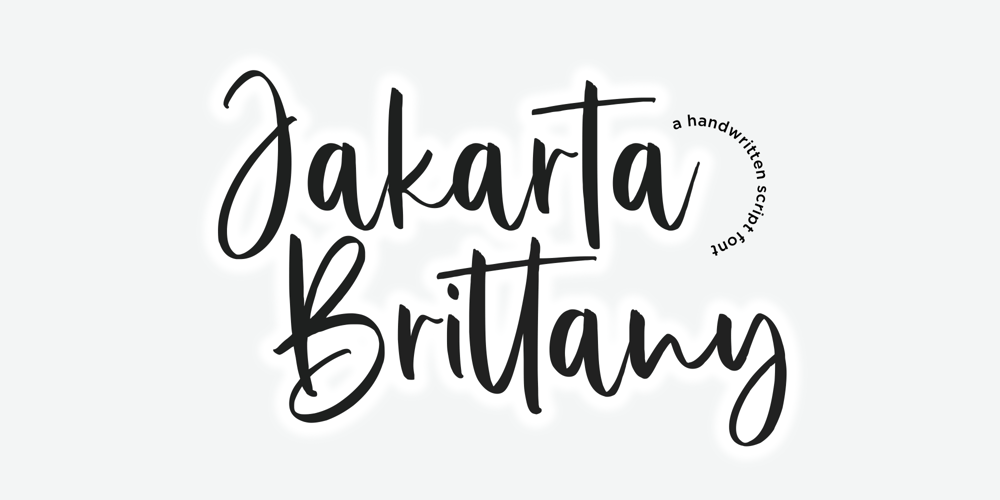
Jakarta Brittany Font Family was designed by Fachrizal Yusuf and published by Allouse Studio. Jakarta Brittany contains 1 styles and family package options. Proudly Presenting, Jakarta Brittany A Handwritten Script Font.Jakarta Brittany is perfect for any titles, logo, product packaging, branding project, megazine, social media, wedding, or just used to express words above the background.Jakarta Brittany also come with Multi-Lingual Support.Enjoy the font, feel free to comment or feedback, send me PM or email. Thank You!